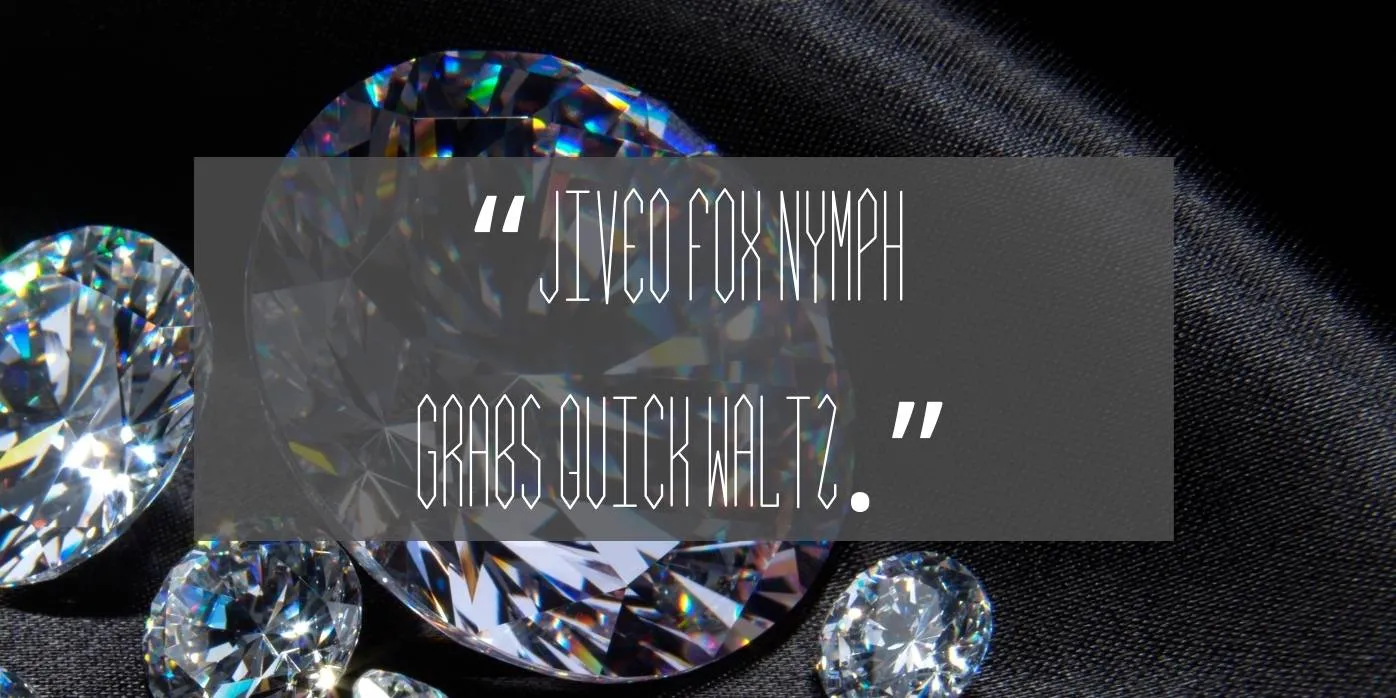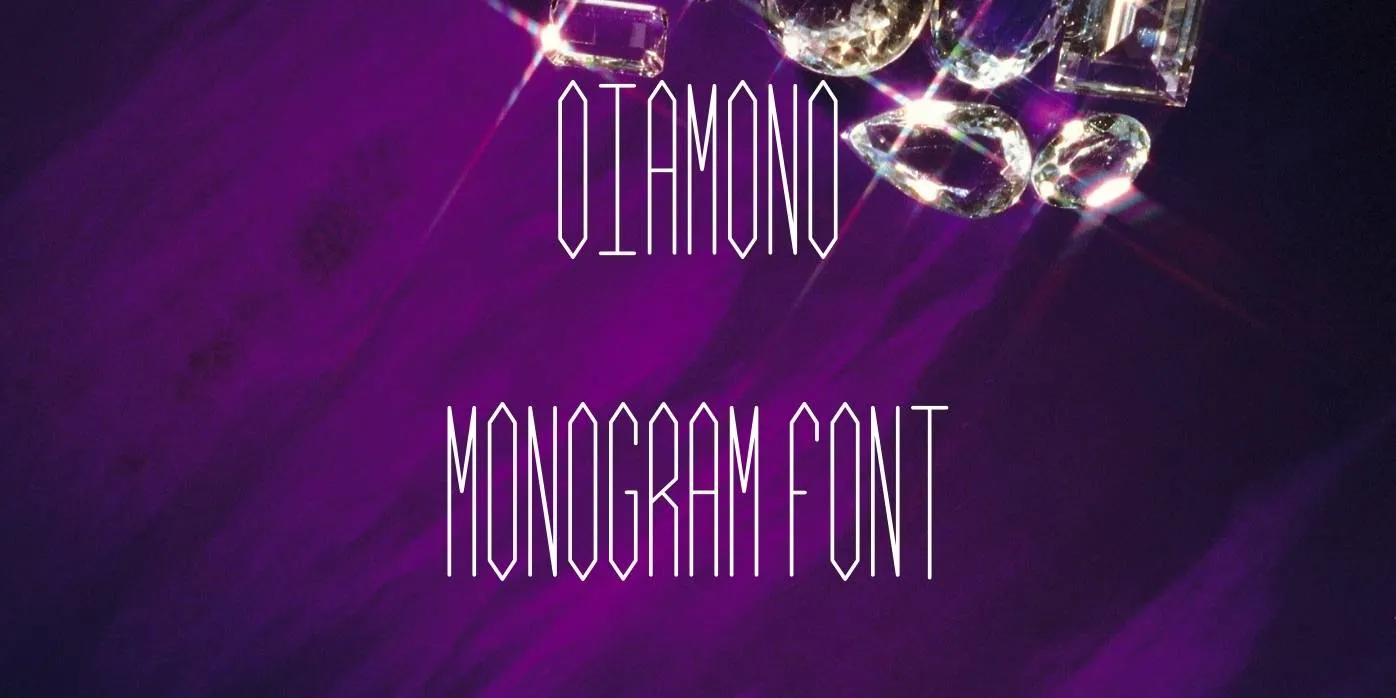
Diamond Monogram Font
Diamond Monogram font was designed by Vladimir Nikolic. This cozy typeface belongs to the Fancy Font. This cozy font is a diamond-shaped typeface that can be used to create monograms and logos. This attractive font has a playful feel and would be perfect for use in children’s books or products.
This cozy font is available in four weights. These weights are light, regular, bold, and black. This stunning typeface is best due to its keen diamond shapes. This fascinating font is perfect for creating monograms, as the diamond shape is unique and recognizable.
Its unique styles, swashes, weights, and diamond shapes make this font a great choice for creating beautiful designs. This font has a wide range of weights and diamond shapes that can be used to create different effects. For different graphic designs, you can use its online tool generator.